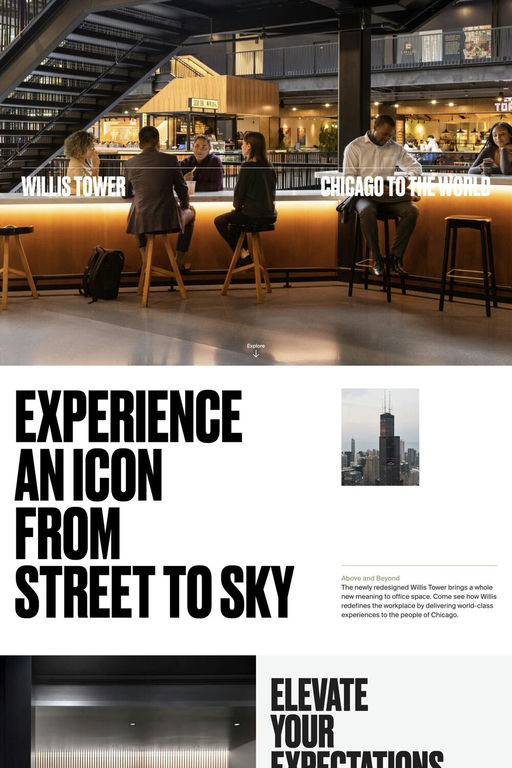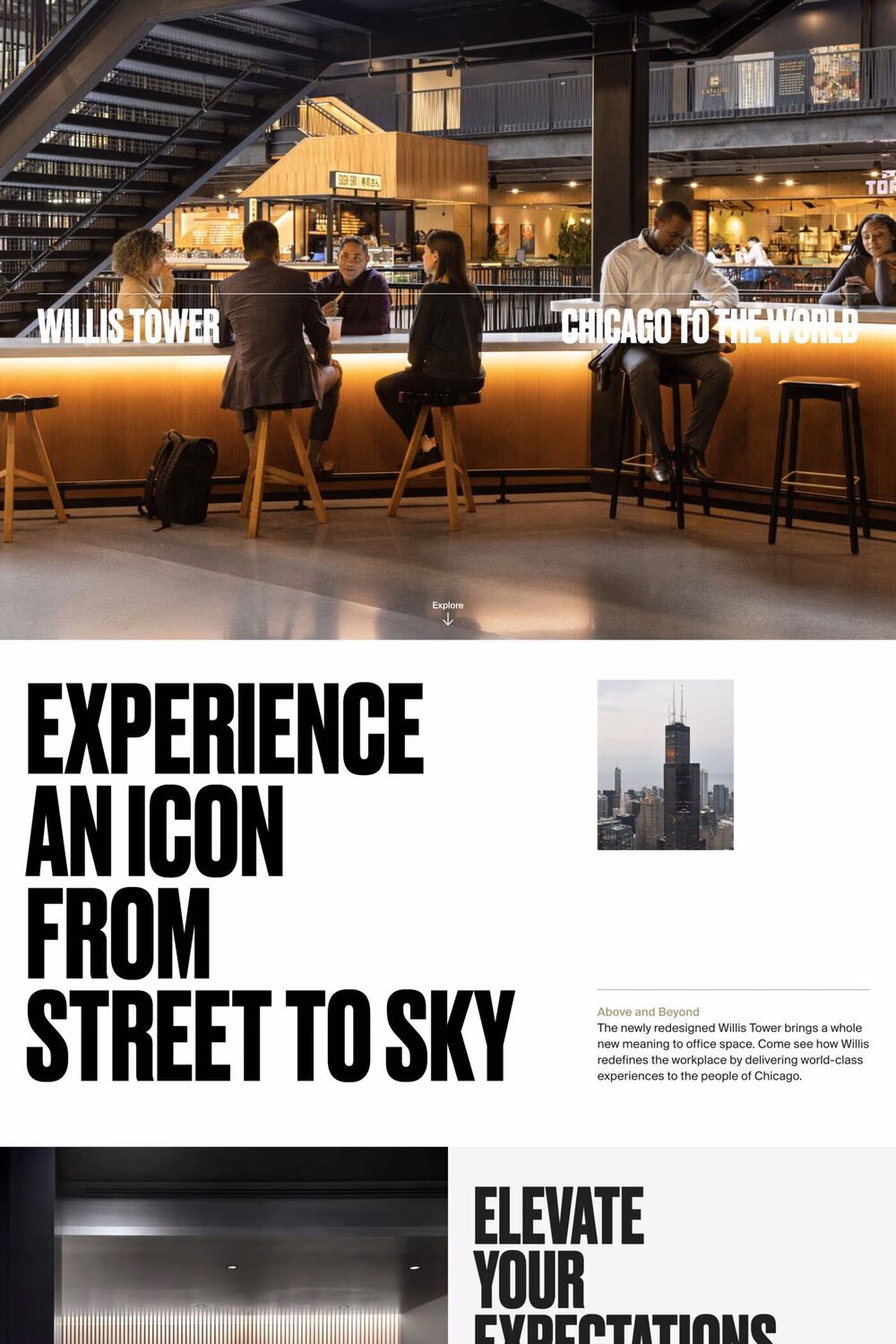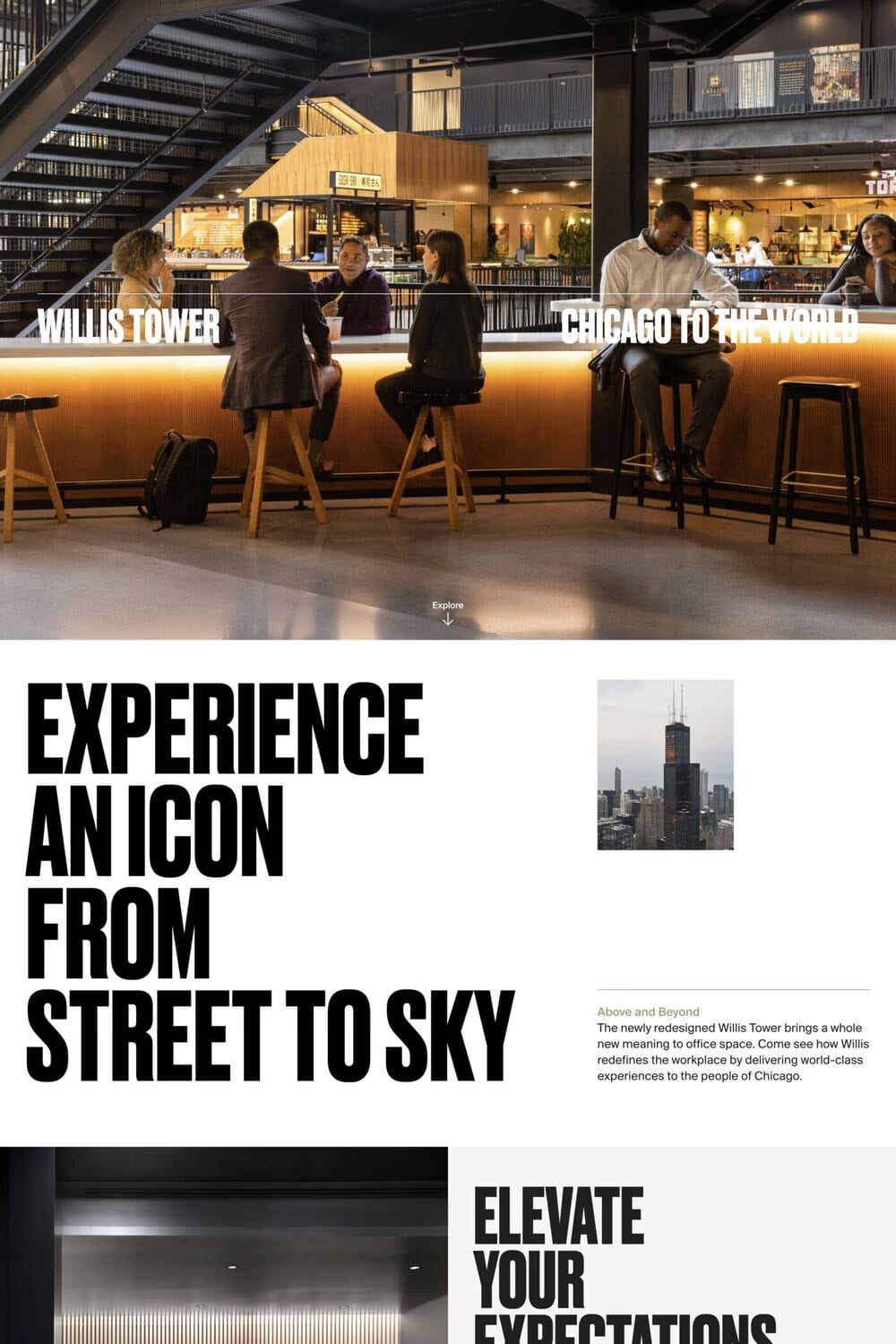
Druk is a sans-serif typeface from Commercial Type.
Druk is a study in extremes, featuring the narrowest, widest, and heaviest typefaces in the Commercial Type library to date. Starting from Medium and going up to Super, Druk is uncompromisingly bold. Druk was intentionally designed without a normal width, nor lighter than medium weights. Berton Hasebe, the designer, wanted to avoid shifting the focus of the typeface away from its most emphatic styles toaccommodate more general-purpose usage.